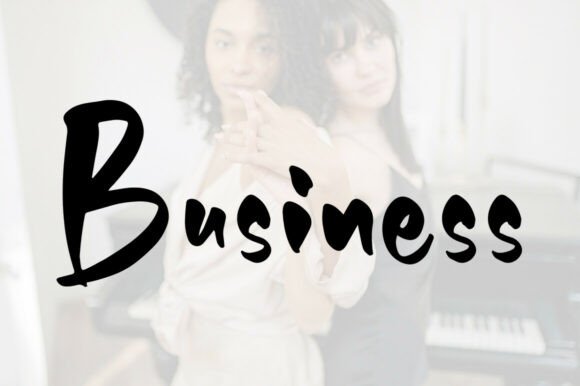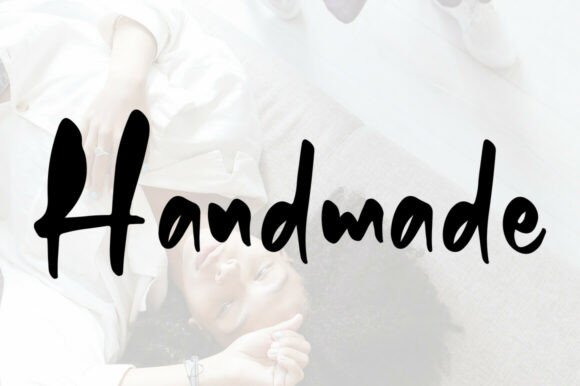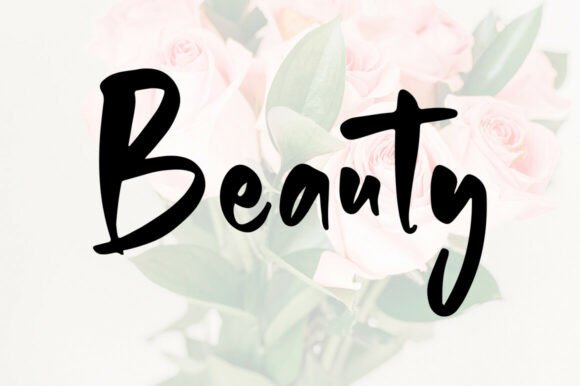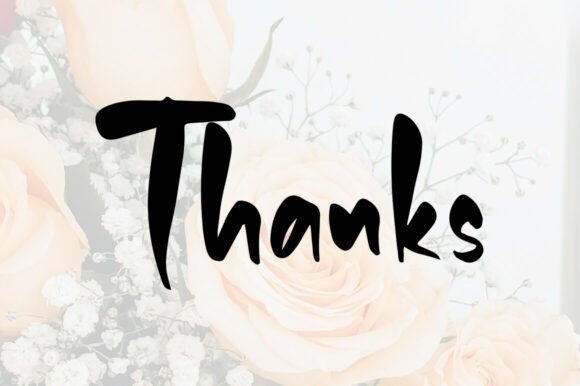
Introducing Anantha Font: The Sweet and Friendly Handwritten Font for Your Creative Projects
Are you a designer or crafter looking for a font that can add a personal touch to your work? Look no further than Anantha Font, a sweet and friendly handwritten font that’s perfect for creating beautiful and unique designs. In this article, we’ll take a closer look at Anantha Font, its features, and how you can use it to elevate your creative projects.
What is Anantha Font?
Anantha Font is a handwritten font that’s designed to bring a sense of warmth and friendliness to your designs. It’s a fun and relaxed font that’s ideal for writing wedding invitations, cards, or any other design that might need a lovely touch. With its smooth and flowing lines, Anantha Font is sure to capture the hearts of your audience and leave a lasting impression.
Key Features of Anantha Font
So, what makes Anantha Font so special? Here are some of its key features:
- Handwritten style: Anantha Font has a beautiful handwritten style that’s perfect for creating personal and unique designs.
- Sweet and friendly: The font has a sweet and friendly tone that’s sure to appeal to a wide range of audiences.
- Fun and relaxed: Anantha Font is a fun and relaxed font that’s perfect for creating designs that need a playful touch.
- Perfect for wedding designs: The font is ideal for creating beautiful wedding invitations, cards, and other designs that require a romantic touch.
How to Use Anantha Font in Your Designs
Anantha Font is a versatile font that can be used in a variety of designs, including:
- Wedding invitations: Use Anantha Font to create beautiful and unique wedding invitations that will set the tone for the big day.
- Cards and stationery: The font is perfect for creating personalized cards and stationery that make thoughtful gifts.
- Social media graphics: Use Anantha Font to create engaging social media graphics that will help you connect with your audience.
- Branding and packaging: The font can be used to create beautiful branding and packaging designs that reflect your brand’s personality.
Tips for Getting the Most Out of Anantha Font
Here are some tips for getting the most out of Anantha Font:
- Experiment with different colors: Anantha Font looks great in a variety of colors, so don’t be afraid to experiment and find the perfect color for your design.
- Pair it with other fonts: The font pairs well with other fonts, so try combining it with a bold font for headings and Anantha Font for body text.
- Use it for titles and headings: Anantha Font is perfect for titles and headings, so use it to add a personal touch to your designs.
| Font Name | Anantha Font |
| Author | Daily Design |
Anantha Font is a beautiful and versatile handwritten font that’s perfect for designers and crafters who want to add a personal touch to their work. With its sweet and friendly tone, fun and relaxed style, and smooth and flowing lines, Anantha Font is sure to capture the hearts of your audience and leave a lasting impression. So why not give it a try and see how it can elevate your creative projects?
Whether you’re creating wedding invitations, cards, or social media graphics, Anantha Font is the perfect choice. So go ahead, get creative, and make your designs shine with Anantha Font!